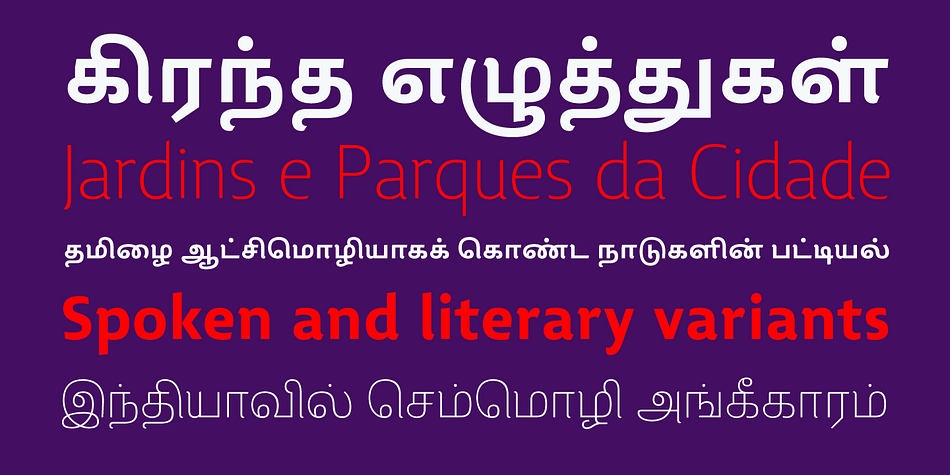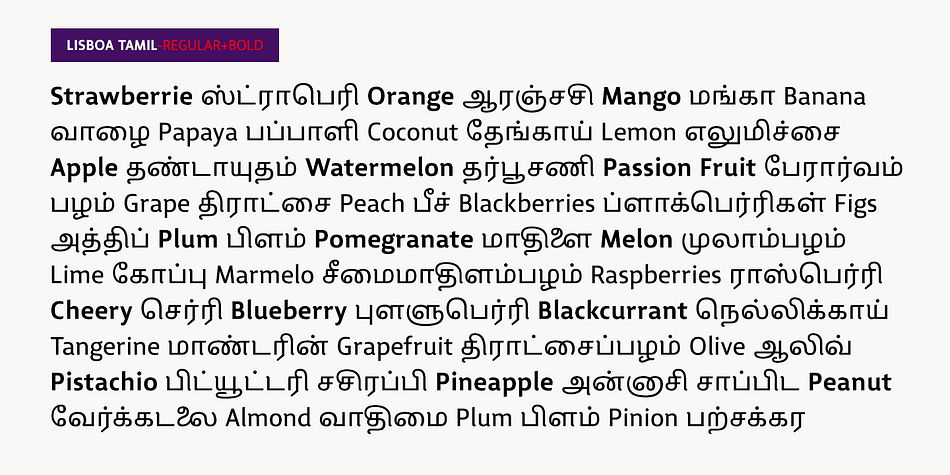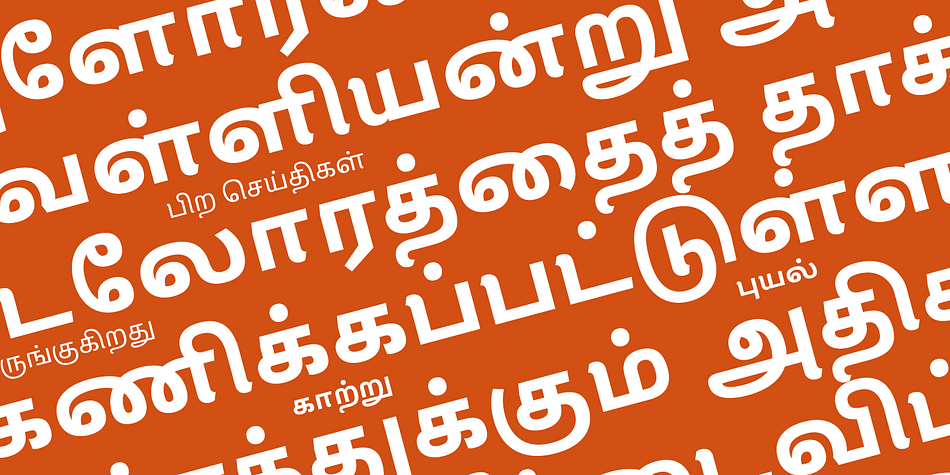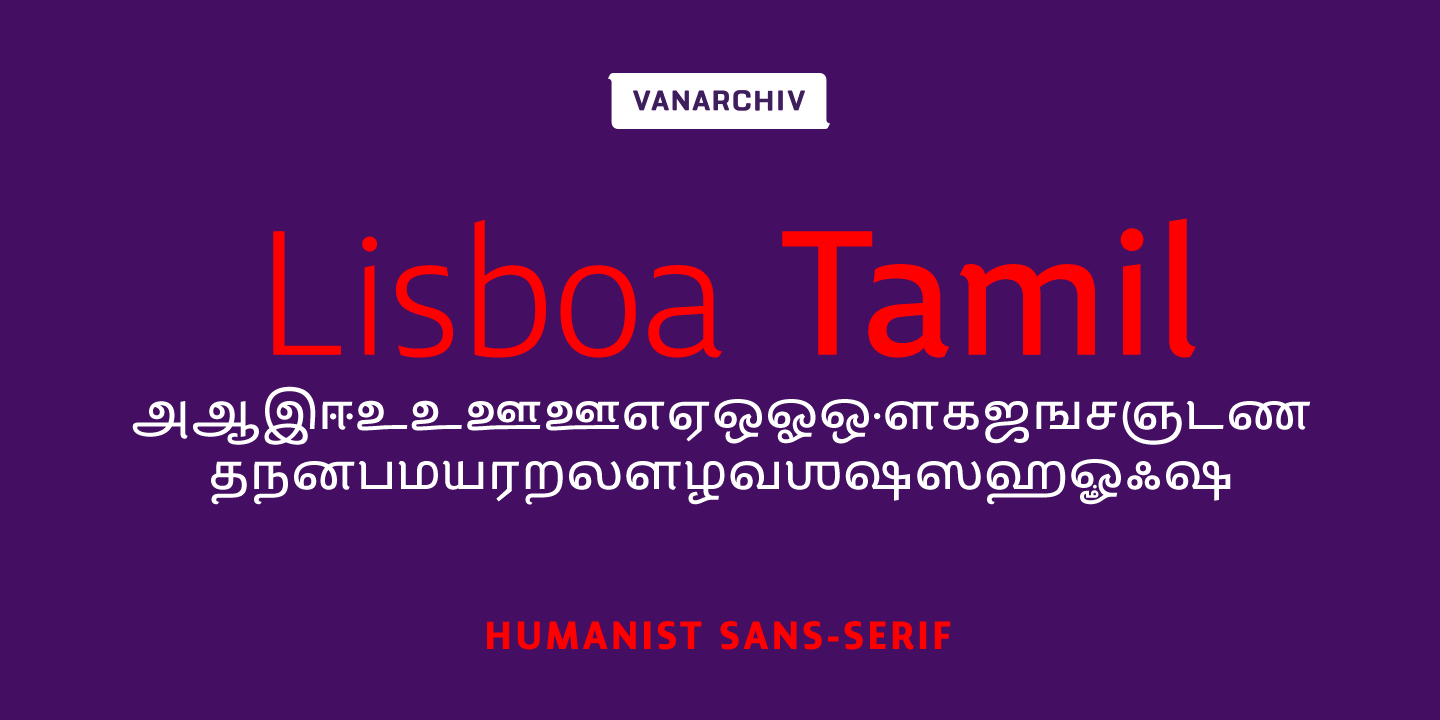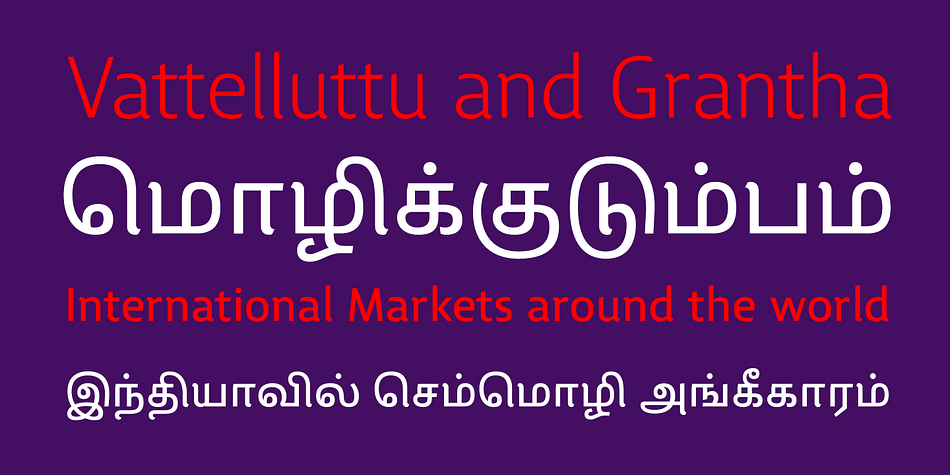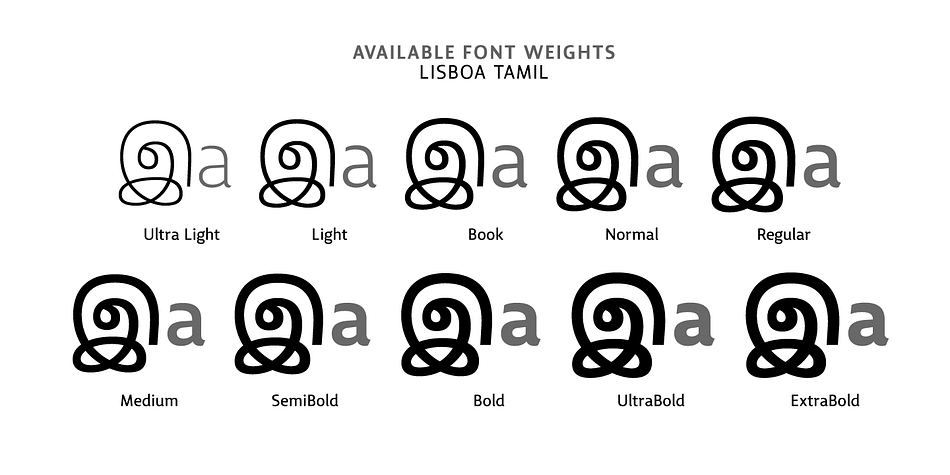
Designed by Ricardo Santos, Lisboa Tamil is a sans serif font family. This typeface has ten styles and was published by Vanarchiv.
Lisboa Tamil is humanist sans-serif typeface base on the same design as the original Latin version (2005).
Originally designed for small sizes this font family can work as display typeface where there own calligraphic style gives elegant low contrast personality between organic and solid design approach. Tamil is Indic script, spoken in southern of India, Sri Lanka and Singapore, Latin transliteration characters were also included.